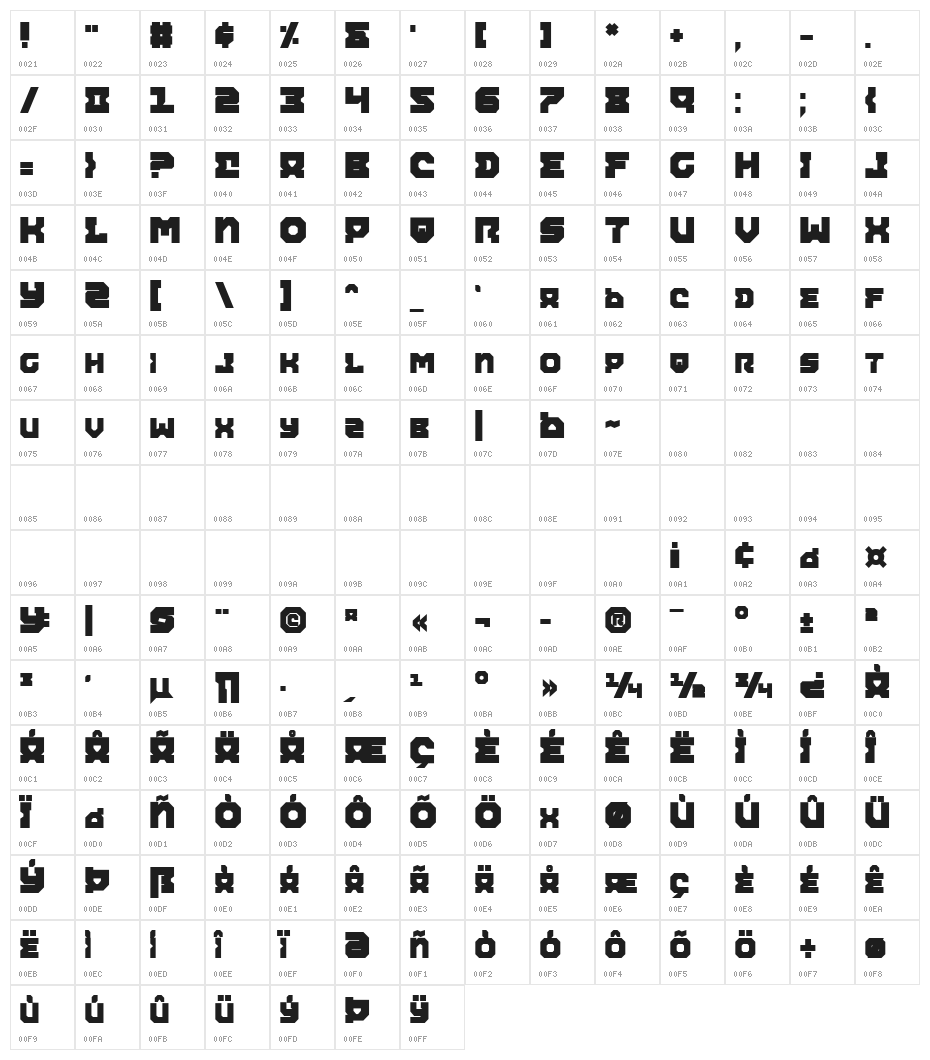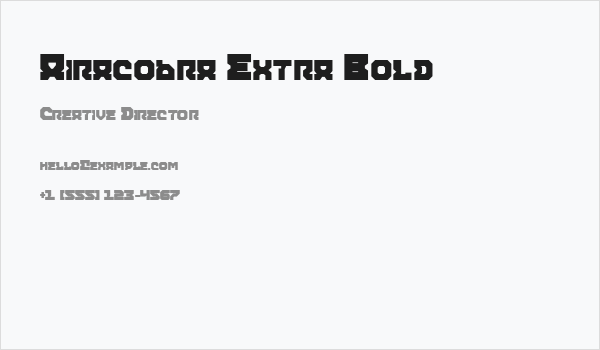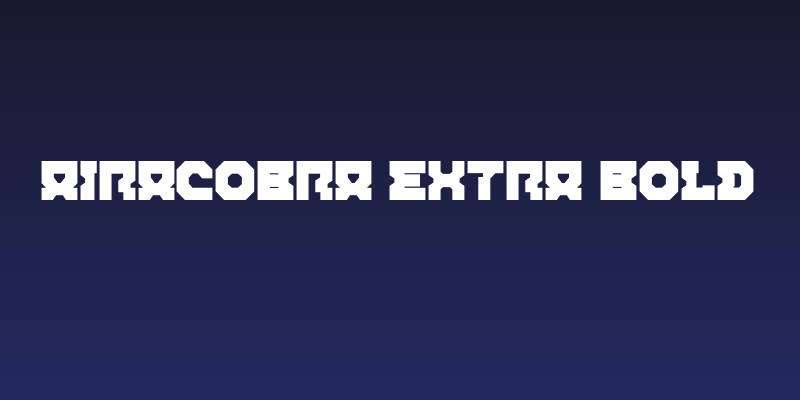
Airacobra Extra Bold Font
Airacobra Extra Bold Description
This font features a bold, geometric design with a strong presence. The characters are constructed with sharp angles and straight lines, giving it a futuristic and industrial feel. The uppercase and lowercase letters maintain a consistent style, with the lowercase being slightly smaller but equally bold. Numbers and special characters follow the same design principles, ensuring uniformity across all glyphs. The font's blocky appearance makes it stand out, ideal for attention-grabbing headlines or logos. Its unique style is both modern and reminiscent of retro digital displays.
| Proposed Projects | Ideal for use in branding, logos, video game titles, posters, and any project requiring a strong, modern aesthetic. |